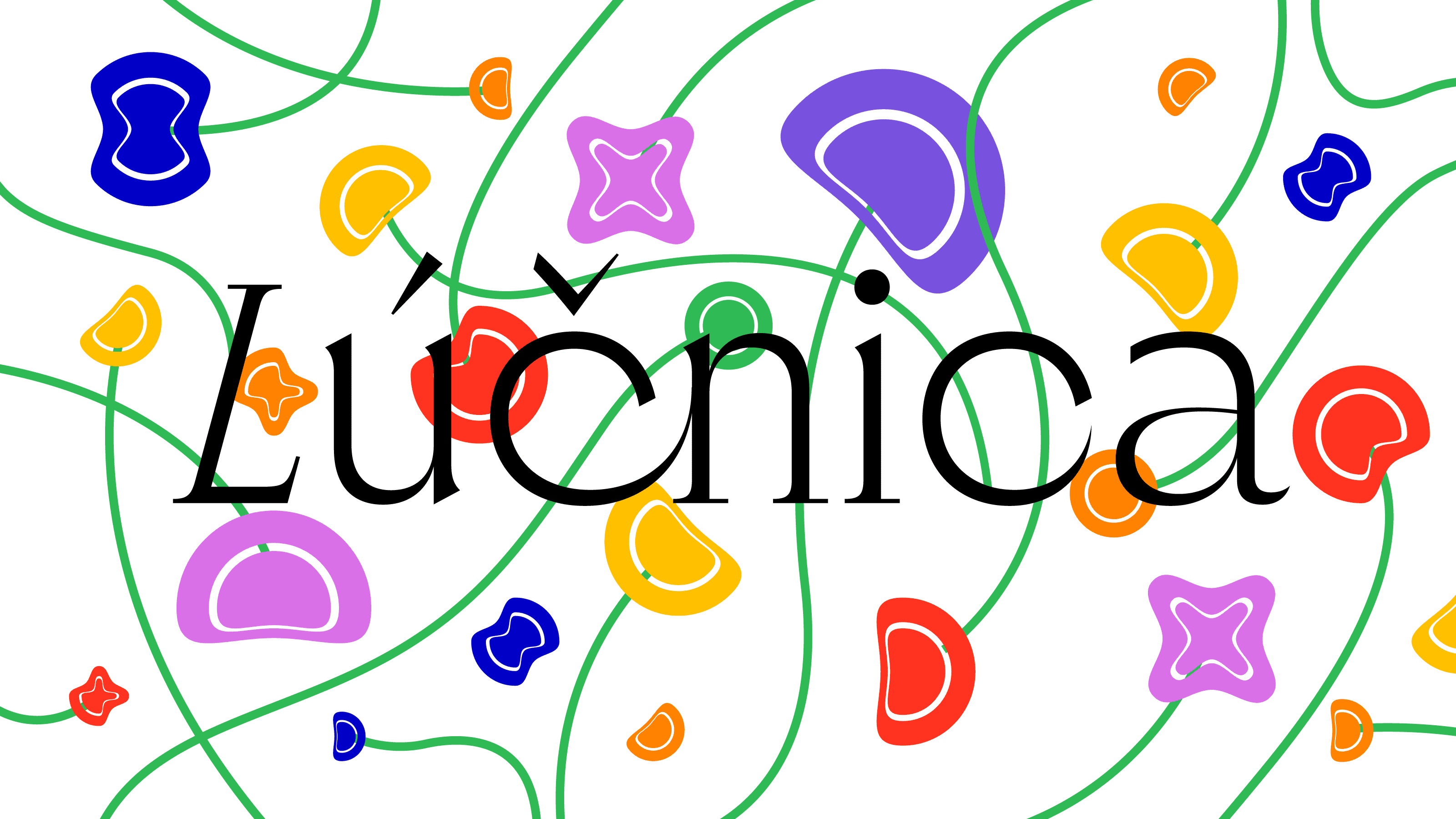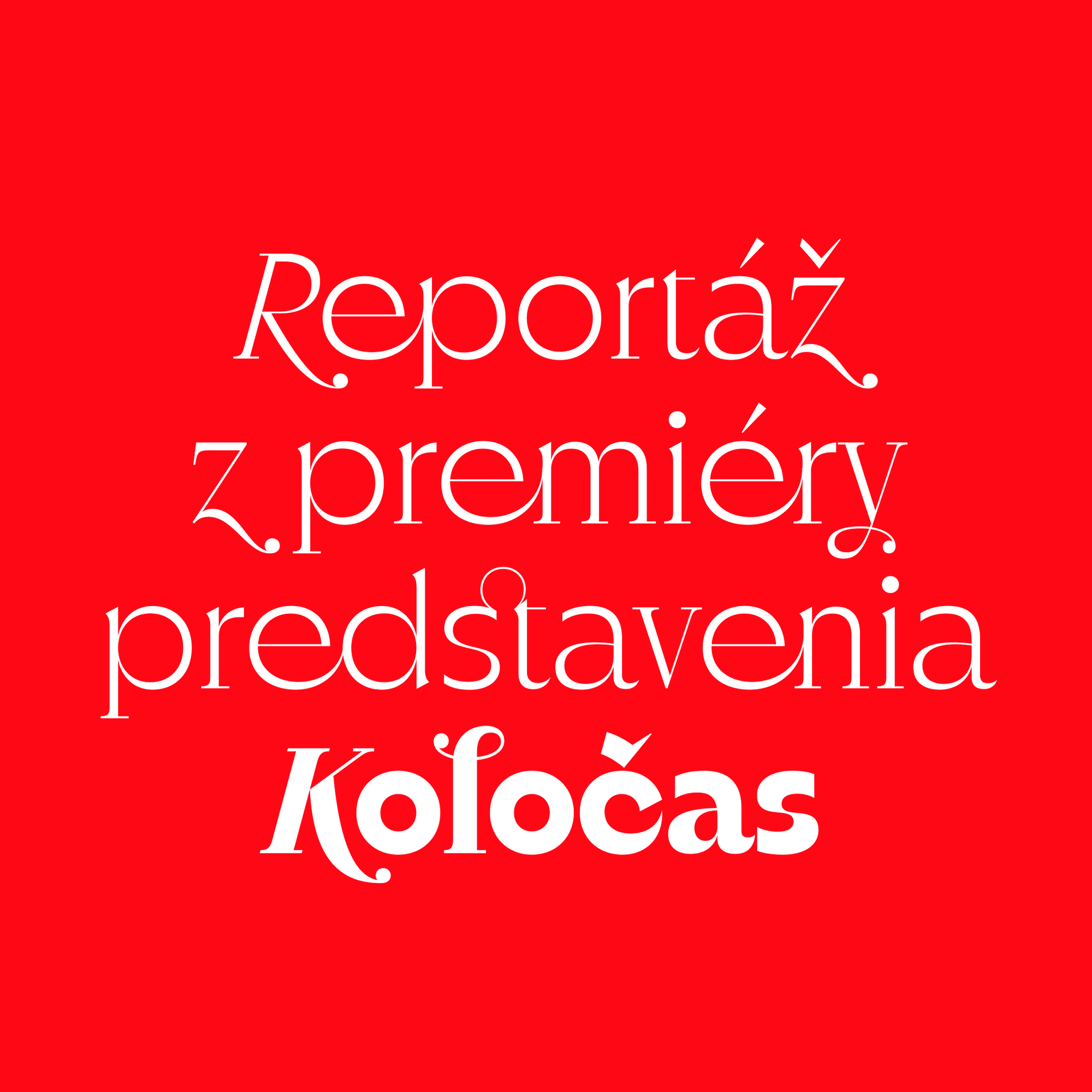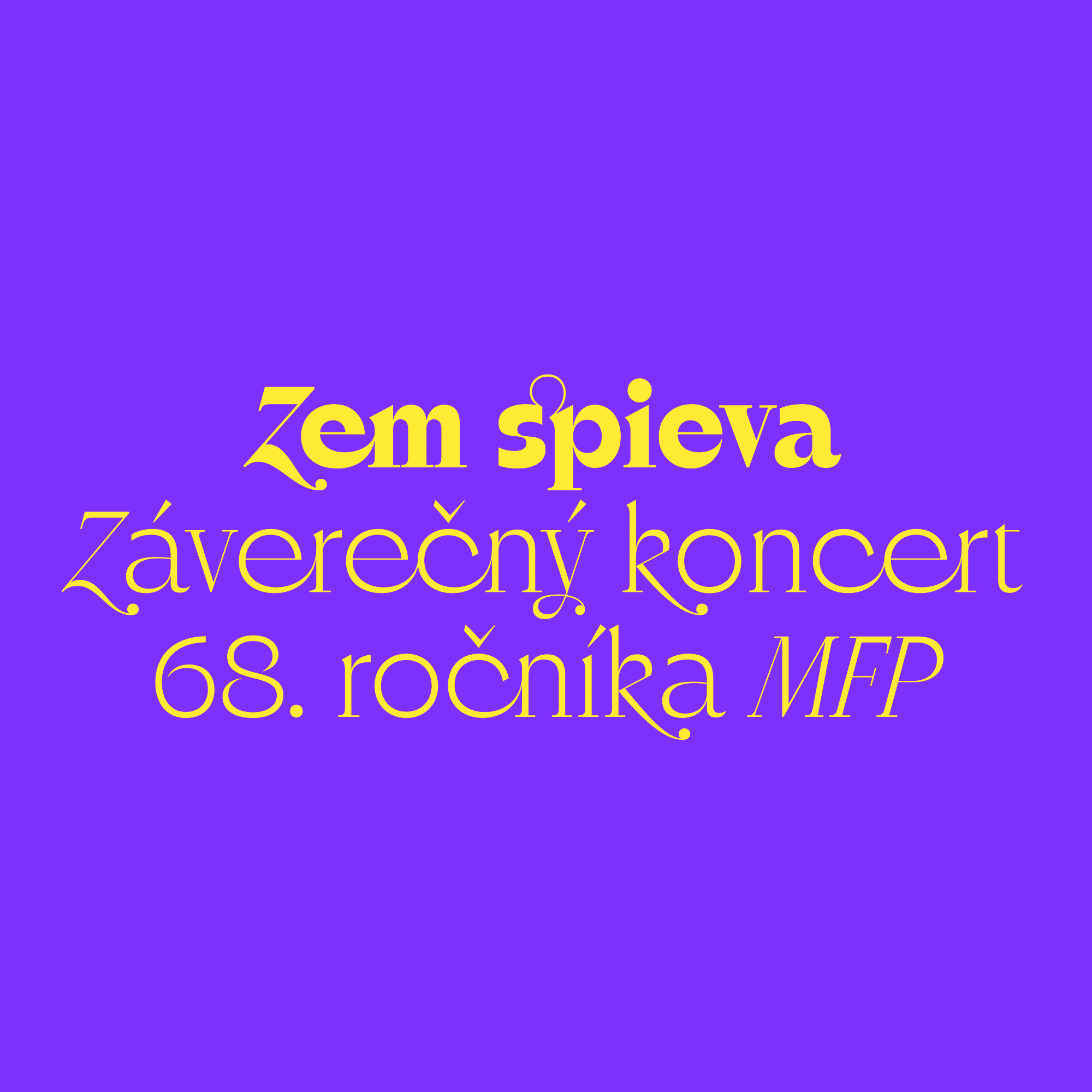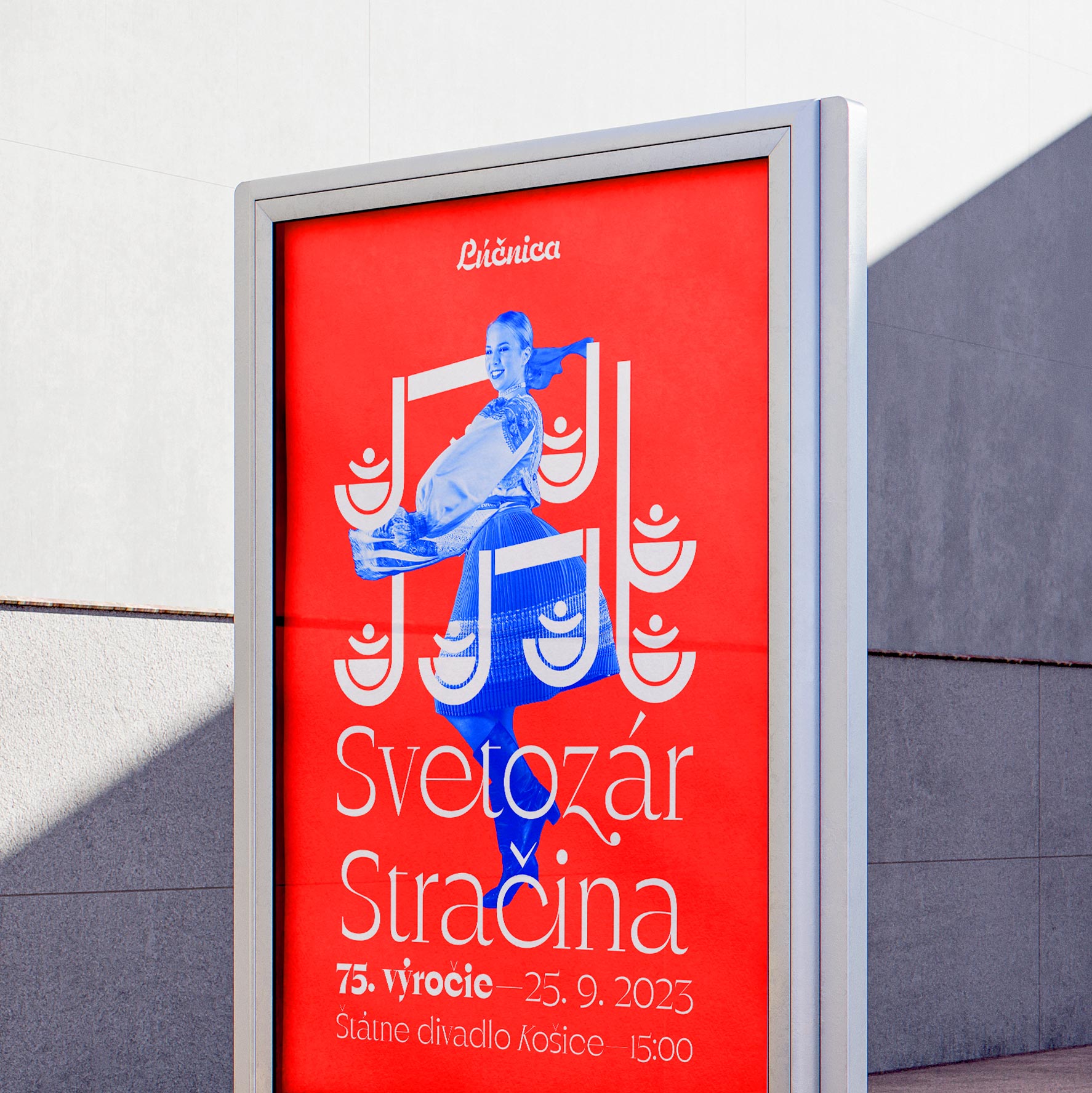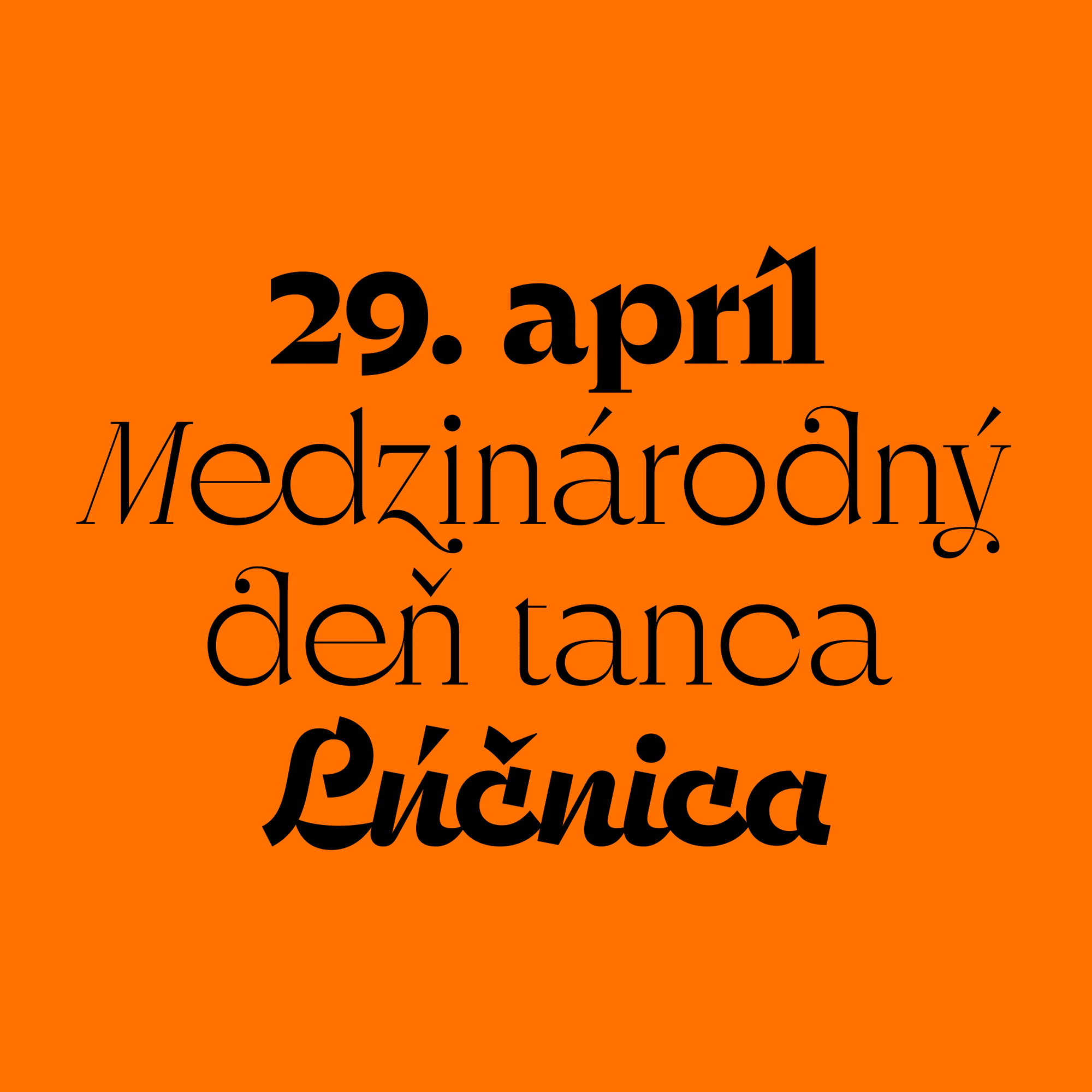
Lúčnica
Lúčnica is a custom typeface created for use in the new visual identity of the Slovak folklore ensemble Lúčnica.
Inspired by a meadow in bloom, Lúčnica is a modern display serif typeface with Light and Black weights. It has a geometric construction with high contrast, which, in select glyphs, is atypically applied — it does not adhere to the principles of stroke modulation but instead organically imitates shoots and stems of plants. The typeface also includes special slanted capitals and numerous decorative and connecting variants of selected glyphs, which can be variously combined using OpenType features. For the numerals, a hybrid design was chosen, balancing between lining and old-style figures.